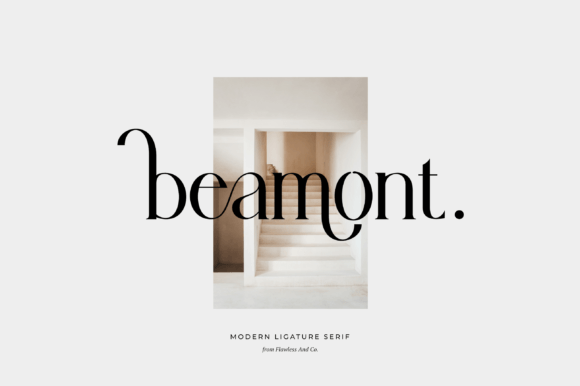
Discover the Elegance of Beamont Font: Elevate Your Designs with Versatility and Style
Are you on the hunt for a font that exudes class, sophistication, and versatility? Look no further than Beamont Font, a stunning serif font that is sure to capture your heart. With its incredibly stylish and adaptable design, Beamont Font is the perfect choice for designers and crafters looking to create breathtaking wedding invitations, beautiful stationery art, eye-catching social media posts, and so much more.
The Characteristics of Beamont Font
Beamont Font boasts a unique blend of traditional and modern elements, making it a standout in the world of typography. Its serif design adds a touch of elegance and sophistication, while its clean lines and precise curves ensure that it remains highly legible, even at smaller sizes. Whether you’re looking to create a formal and luxurious feel or a more playful and creative vibe, Beamont Font is up to the task.
What Makes Beamont Font So Versatile?
One of the key features that sets Beamont Font apart is its incredible versatility. This font can be used across a wide range of design applications, from print materials like wedding invitations and stationery to digital platforms like social media and websites. Its adaptability makes it an excellent choice for designers who need a font that can keep up with their creative vision, no matter the project.
Wedding Invitations and Stationery
Beamont Font is particularly well-suited for wedding invitations and stationery. Its elegant and refined design makes it perfect for formal wedding announcements, save-the-date cards, and other wedding-related materials. The font’s classic look also ensures that your designs will stand the test of time, remaining stylish and relevant for years to come.
Social Media and Digital Designs
In addition to its use in print materials, Beamont Font is also an excellent choice for digital designs. Its clear and legible design makes it perfect for social media posts, blog headers, and other digital content. Whether you’re looking to create eye-catching graphics, informative blog posts, or engaging social media updates, Beamont Font is sure to help you make a lasting impression.
Why Designers and Crafters Love Beamont Font
So, what is it about Beamont Font that has designers and crafters falling in love? For starters, its unique blend of style and versatility makes it an excellent addition to any design toolkit. Additionally, the font’s high level of legibility and adaptability ensures that it can be used across a wide range of design applications, from formal and luxurious to playful and creative.
Easy to Use and Customize
Font Name Beamont Font
Author Flawless And Co
In conclusion, Beamont Font is a classy and stylish serif font that offers a unique blend of versatility, legibility, and style. Whether you’re a designer or crafter looking to create breathtaking wedding invitations, beautiful stationery art, or eye-catching social media posts, Beamont Font is the perfect choice. With its easy-to-use design, range of customization options, and adaptability across a wide range of design applications, Beamont Font is sure to become a go-to in your design toolkit.